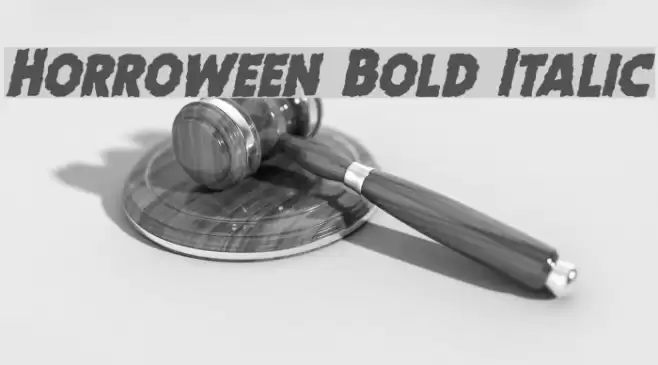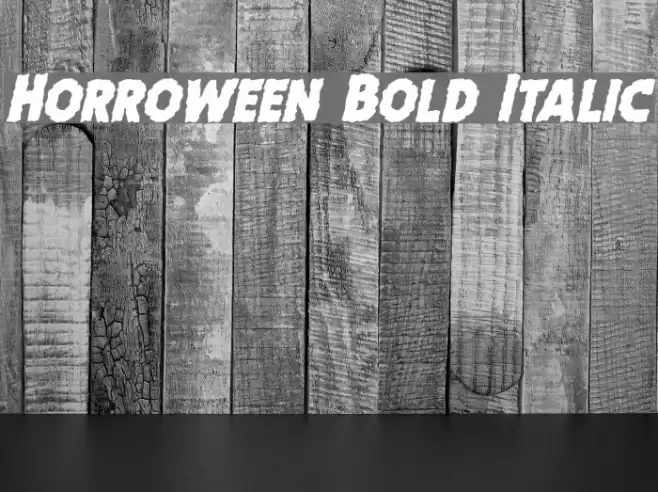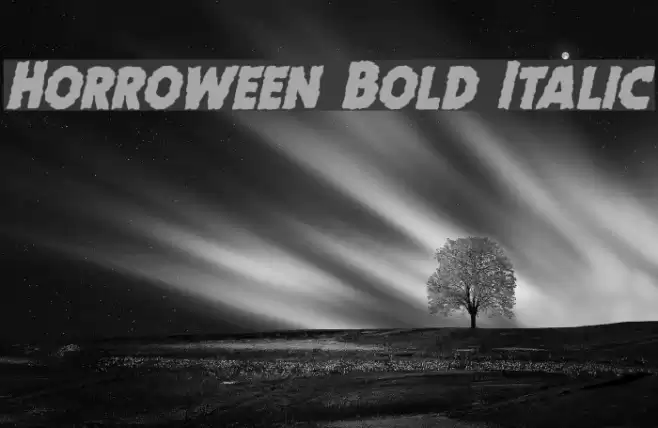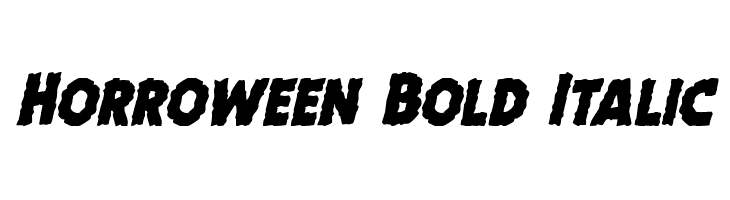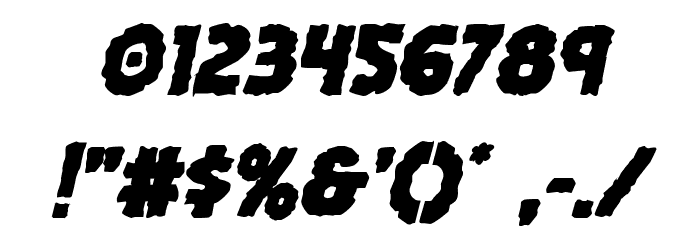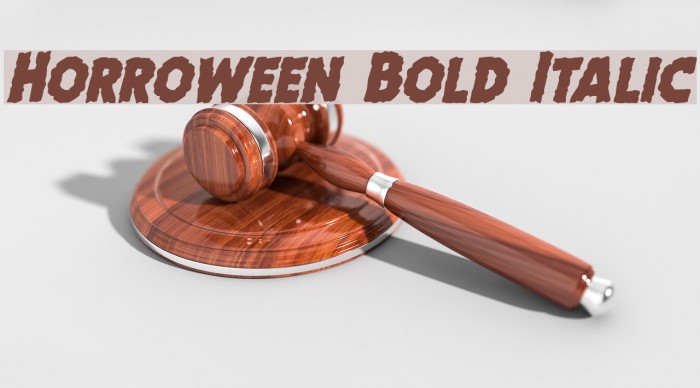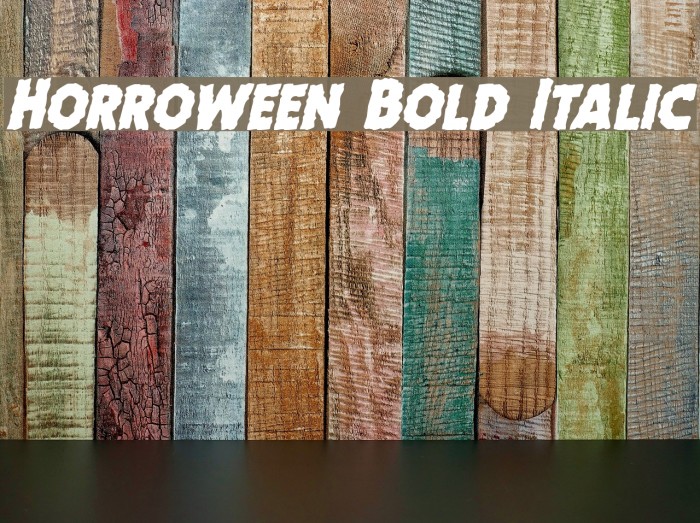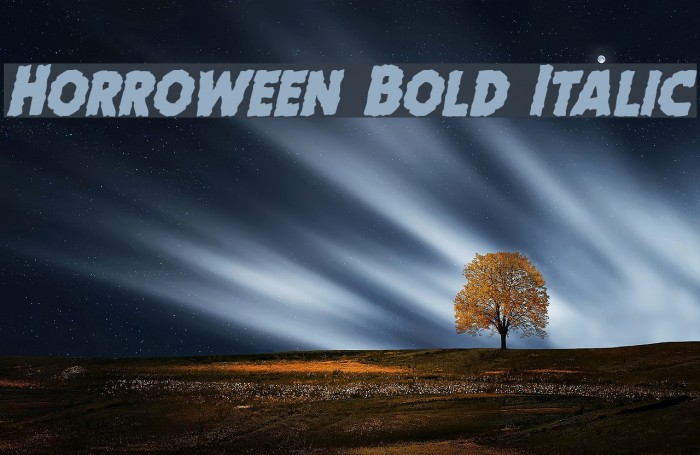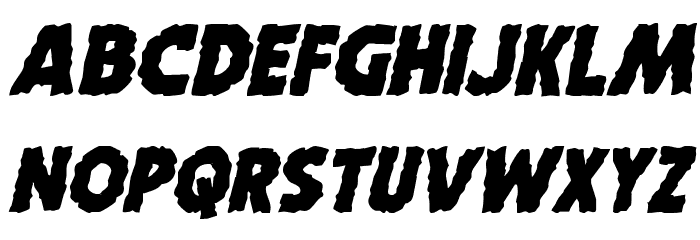
Horroween Bold Italic Font
Horroween Bold Italic Description
This font features a bold and italicized style with a jagged, distressed appearance, reminiscent of classic horror themes. The characters are heavily stylized with uneven edges, creating a sense of urgency and intensity. The uppercase and lowercase letters maintain a consistent design, with numbers and special characters following the same aesthetic. The font's unique style is perfect for capturing attention and conveying a spooky, eerie atmosphere.
A bold, italicized font with a jagged, horror-themed design from Uncategorized fonts.
- Proposed Projects: Ideal for Halloween-themed posters, horror movie titles, spooky event invitations, and themed merchandise.